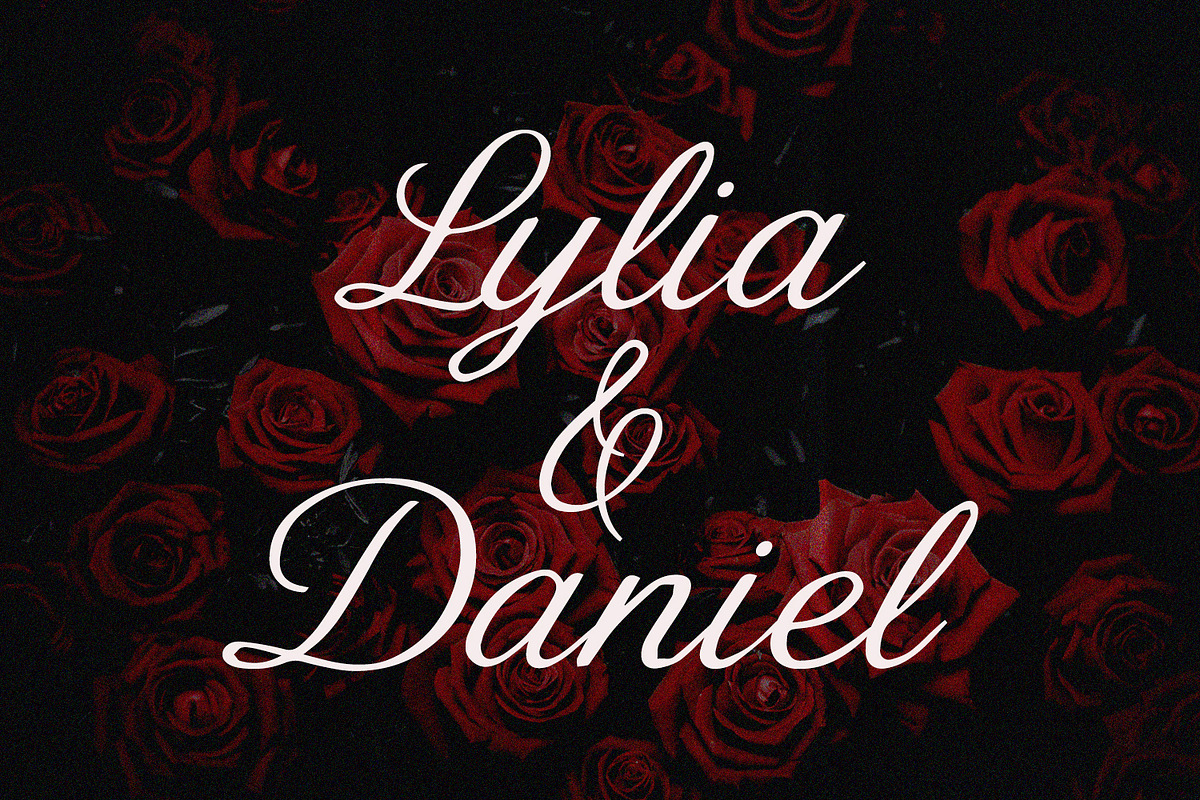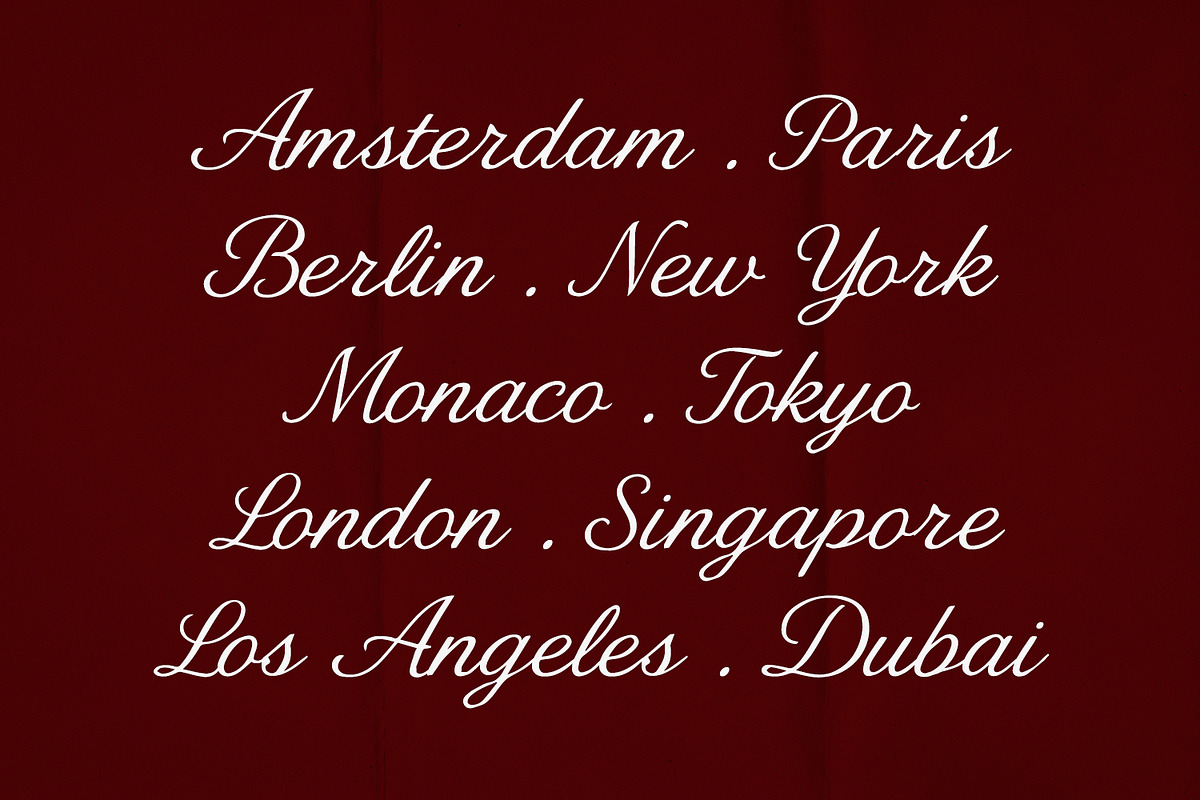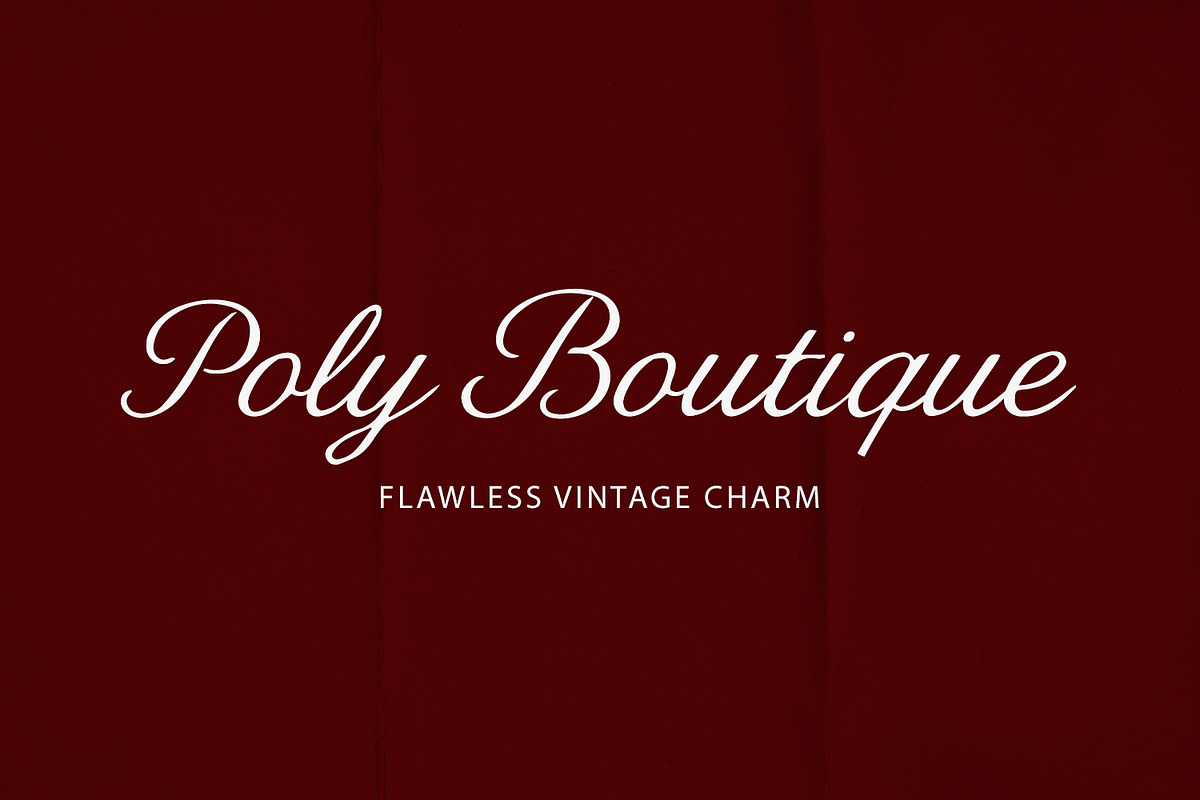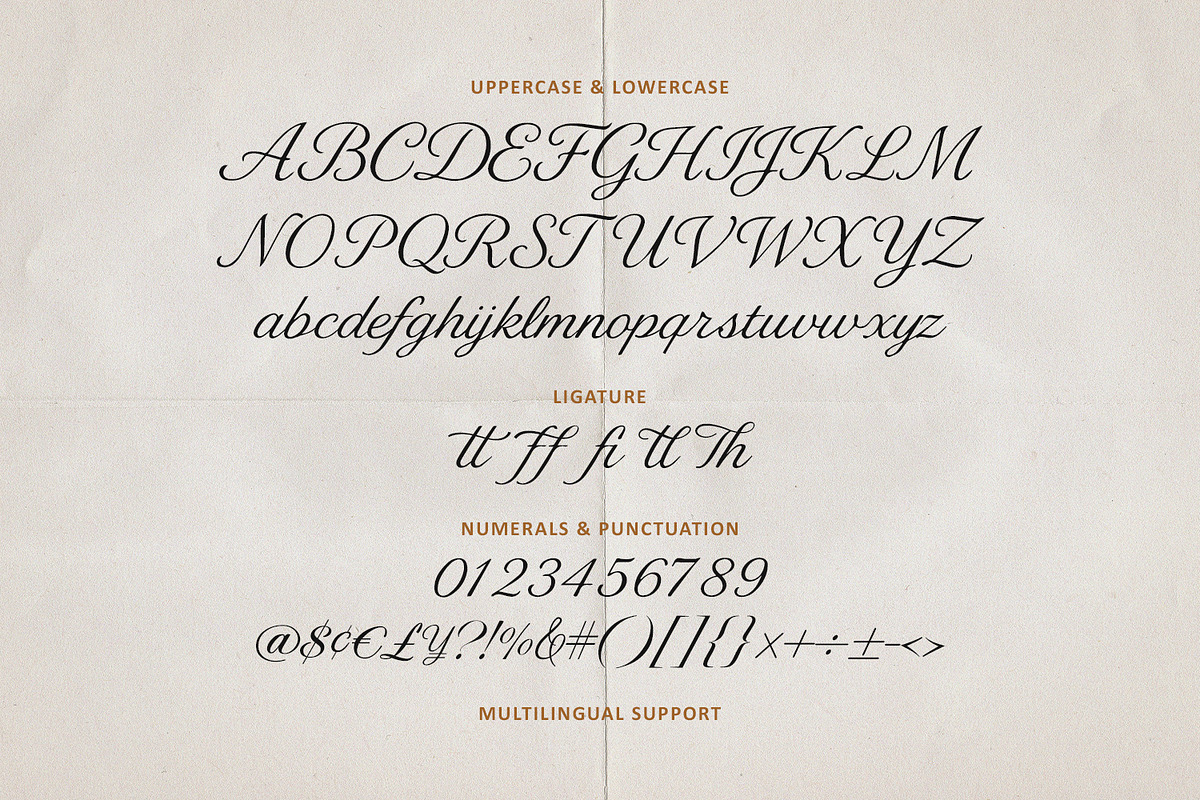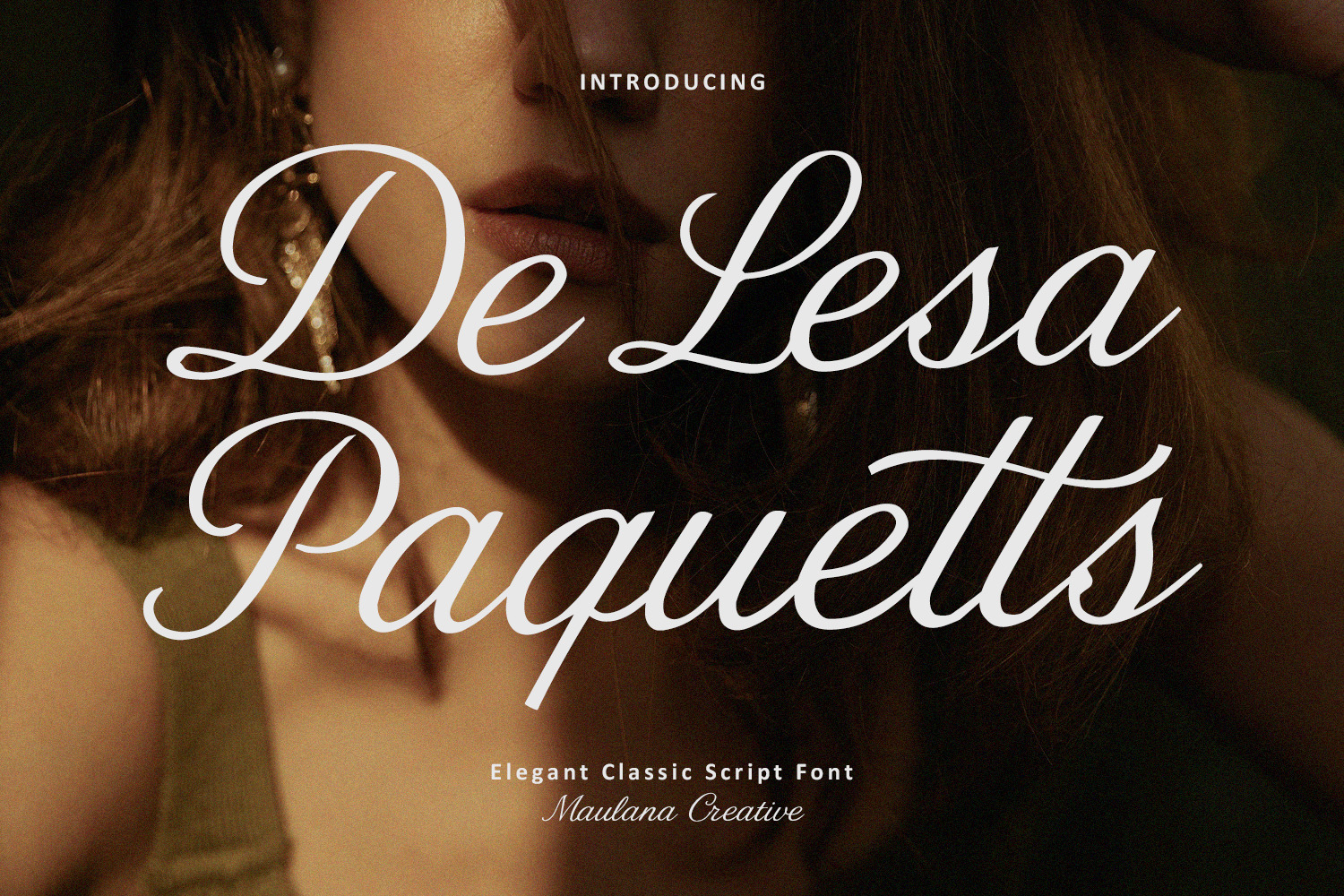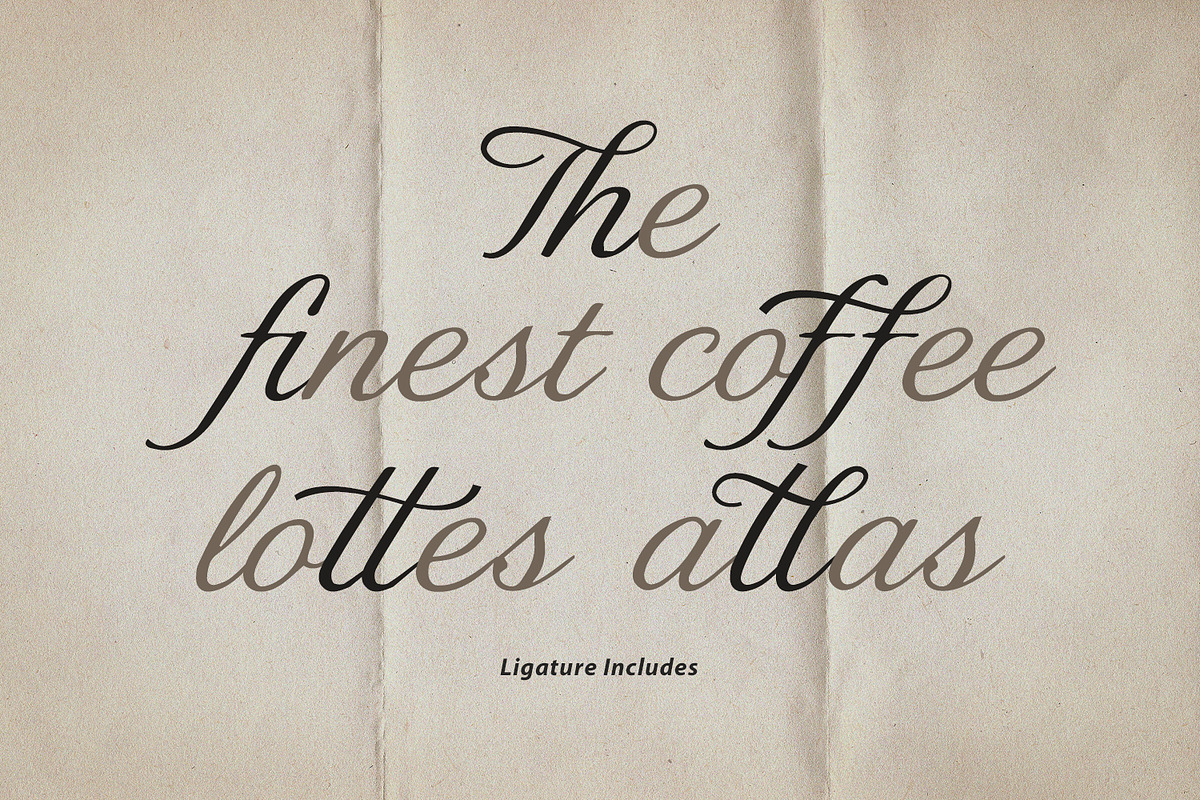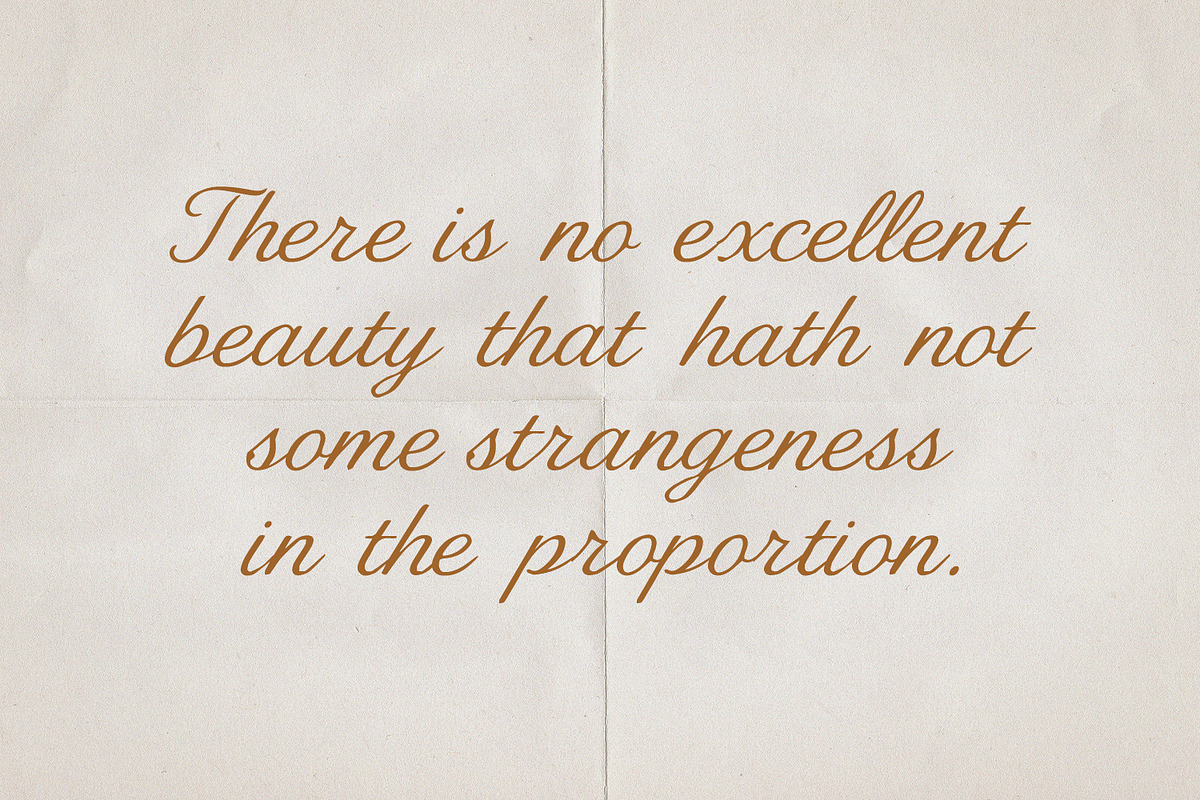
De Lesa Paquetts Classic Script Font
Introduce a touch of sophisticated luxury to your designs with De Lesa Paquetts, a classic script font meticulously crafted by Maulana Creative. Inspired by traditional copperplate calligraphy with a modern, clean twist, this font embodies the essence of "Flawless Vintage Charm."
De Lesa Paquetts features fluid, graceful connections and balanced proportions, making it the perfect choice for high end branding. Whether you are designing a romantic wedding invitation, a premium boutique logo, or an editorial layout for a fashion magazine, this font provides an instant air of exclusivity.
- Full Character Set: Uppercase & Lowercase letters with a consistent, elegant slant.
- Special Ligatures: Beautifully designed ligatures for a more natural, hand-written feel.
- Numerals & Punctuation: Complete set for global versatility.
- Multilingual Support: Ready for various languages.
- Wedding Stationery: Invitations, RSVP cards, and envelopes.
- Premium Branding: Luxury logos, boutique shopfronts, and jewelry packaging.
- Editorial Design: Magazine headers, quotes, and book covers.
- Social Media: Aesthetic Pinterest pins and Instagram lifestyle quotes.